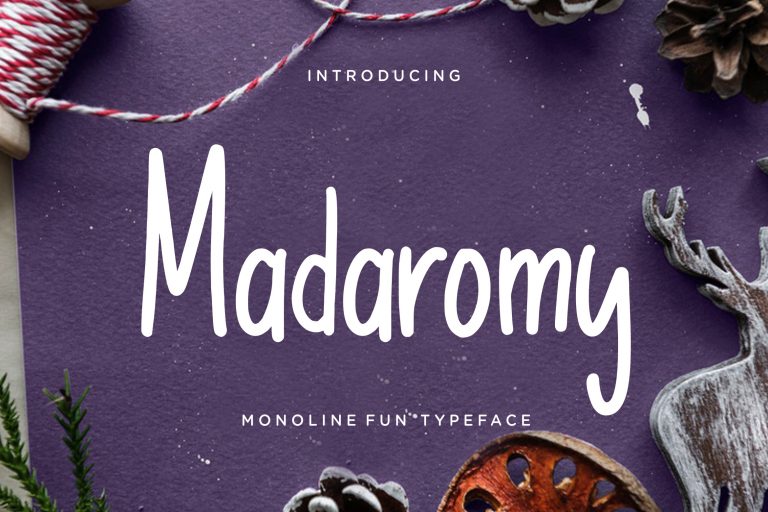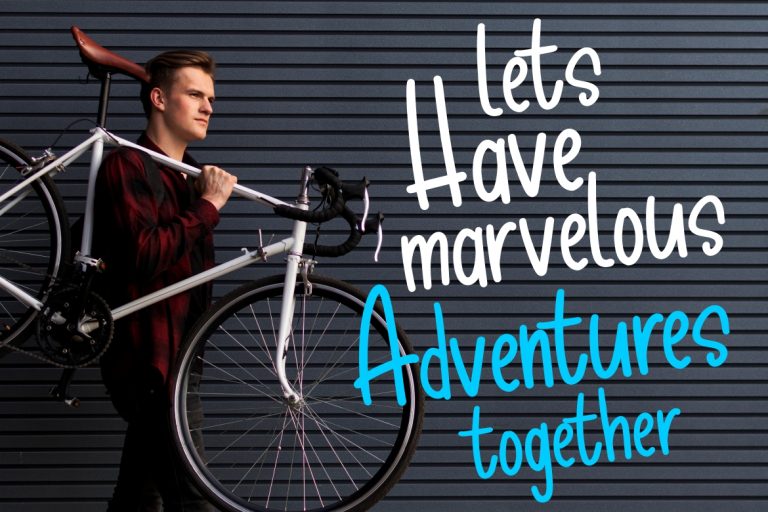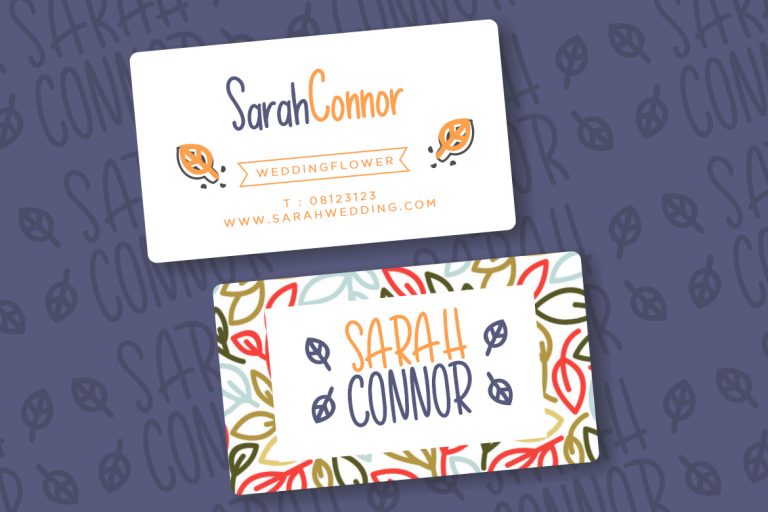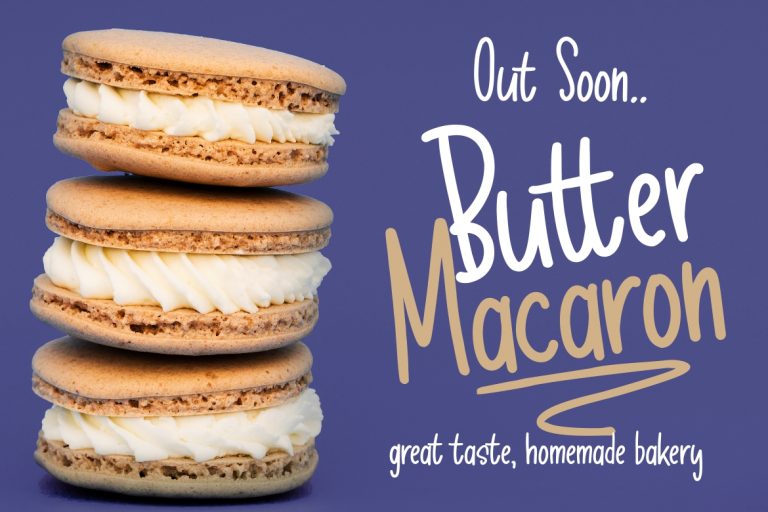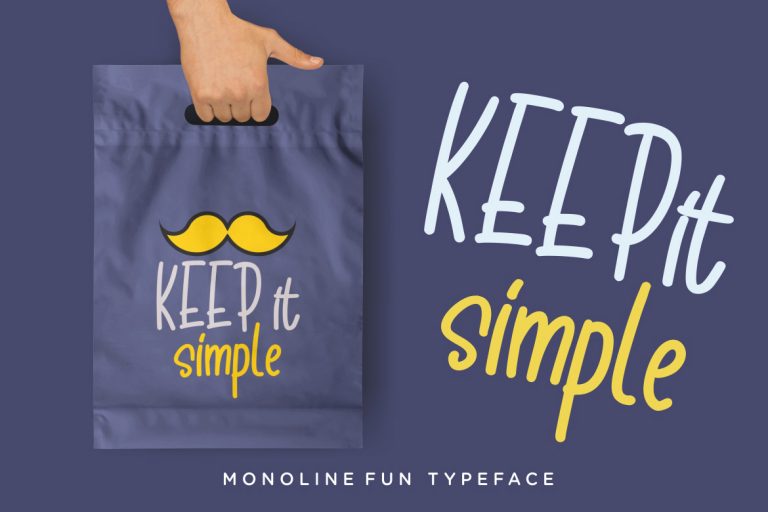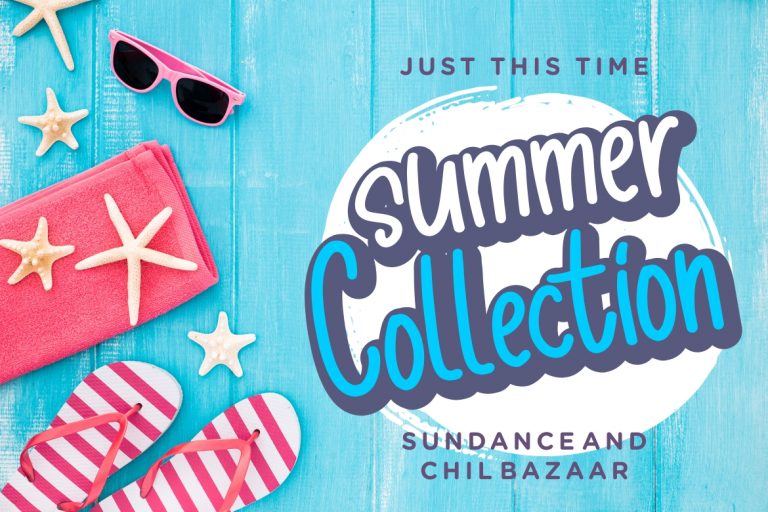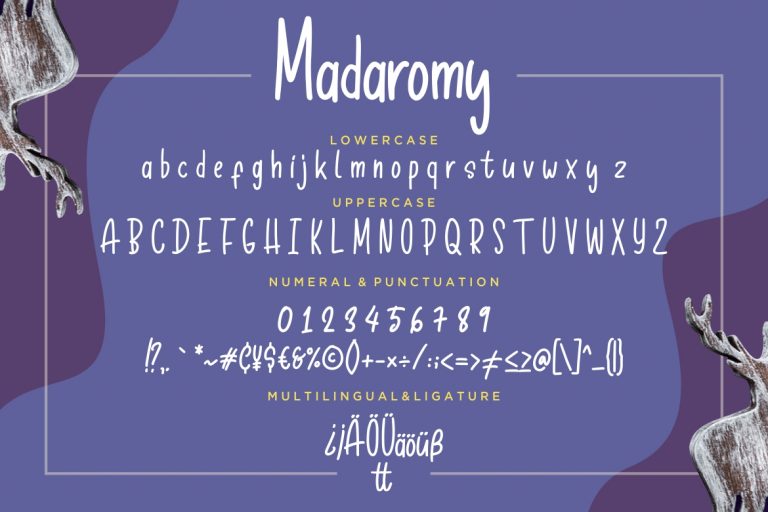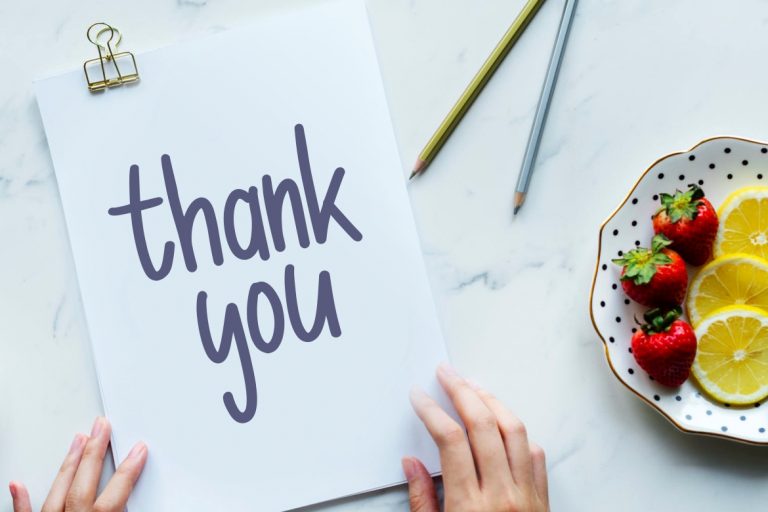
Madaromy Fun Monoline
Madaromy is fun monoline font with a happy touch, it’s perfect for your latest project.
Madaromy is perfect for branding projects, logo, wedding designs, social media posts, advertisements, product packaging, product designs, label, photography, watermark, invitation, stationery and any projects that need handwriting taste.
- Fonts include multilingual support for; ä ö ü Ä Ö Ü ß ¿ ¡